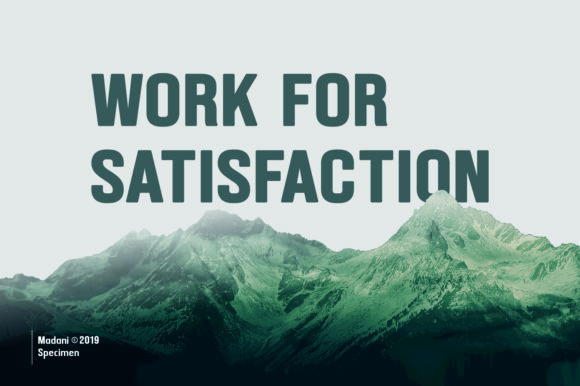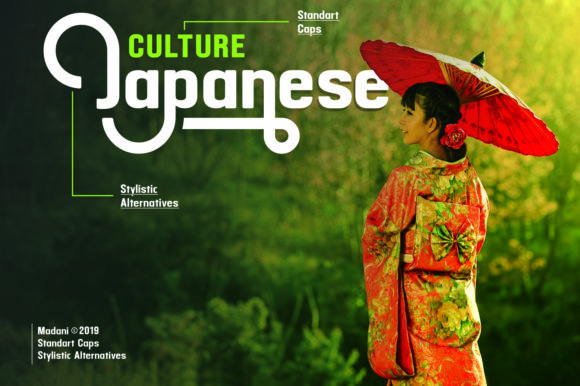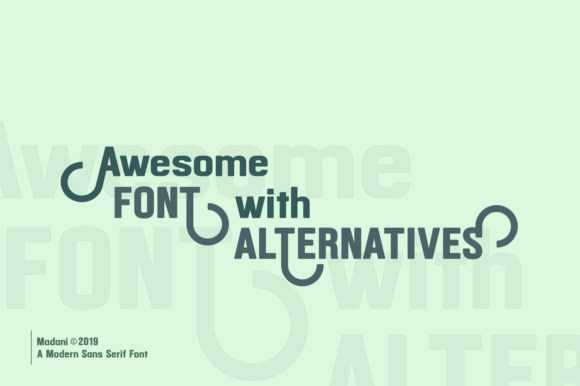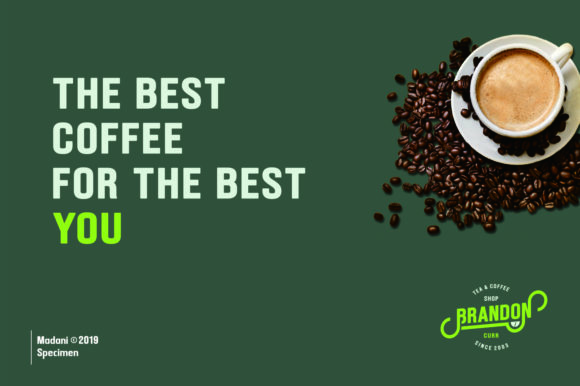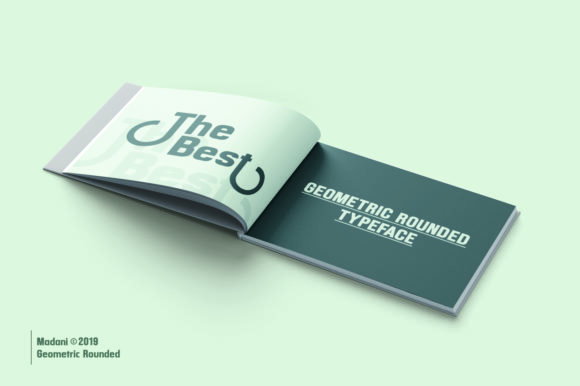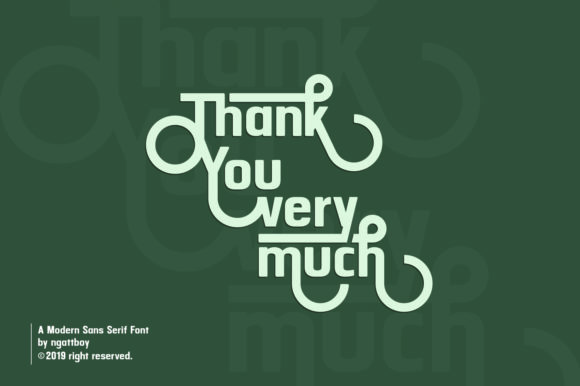
Introduction to Madani Font
Have you ever stared at a blank canvas, eager to bring your creative vision to life, only to be hindered by the perfect font? That’s exactly what happened to me when I stumbled upon the Madani Font. Its striking sans serif letters and modern feel instantly caught my attention, and I knew I had to learn more about this design resource.
As a designer, I can attest to the importance of having a reliable and high-quality font to complement our creative projects. The Madani Font is more than just a pretty face; it’s a versatile tool that can elevate any design concept. With its transparent background and sleek aesthetic, this font is perfect for designers looking to add a touch of sophistication to their work.
Key Features of Madani Font
- High quality, elegant design suitable for creative projects
- Supports a wide range of languages, including Arabic and other Middle Eastern scripts
- Perfect for use in various design applications, including graphic design, digital art, and publishing
Honest Review: Madani Font
I recently stumbled upon the Madani Font while searching for a high-quality design resource for a creative project. I was impressed by its unique and elegant style, which instantly caught my attention.
- ✨ Elegant and unique design style, perfect for creative projects
- ✨ High-quality font files, suitable for both digital and print use
- ✨ Transparent background, making it easy to use with any design
- ⚠️ Limited language support, which may be a concern for projects requiring multiple languages
- ⚠️ Not as extensive a character set as some other fonts, which may limit its use in certain creative projects
Overall, I’m impressed with the Madani Font’s unique design style and high-quality font files. While it may have some limitations, it’s a great addition to any designer’s toolkit. The free download is a definite plus, making it an accessible design resource for anyone looking to elevate their creative project.
Madani Font can be used in a variety of creative projects, including graphic design, digital art, and typography. It’s perfect for creating logos, business cards, and other marketing materials. You can also use it to create unique and eye-catching social media graphics and posters.